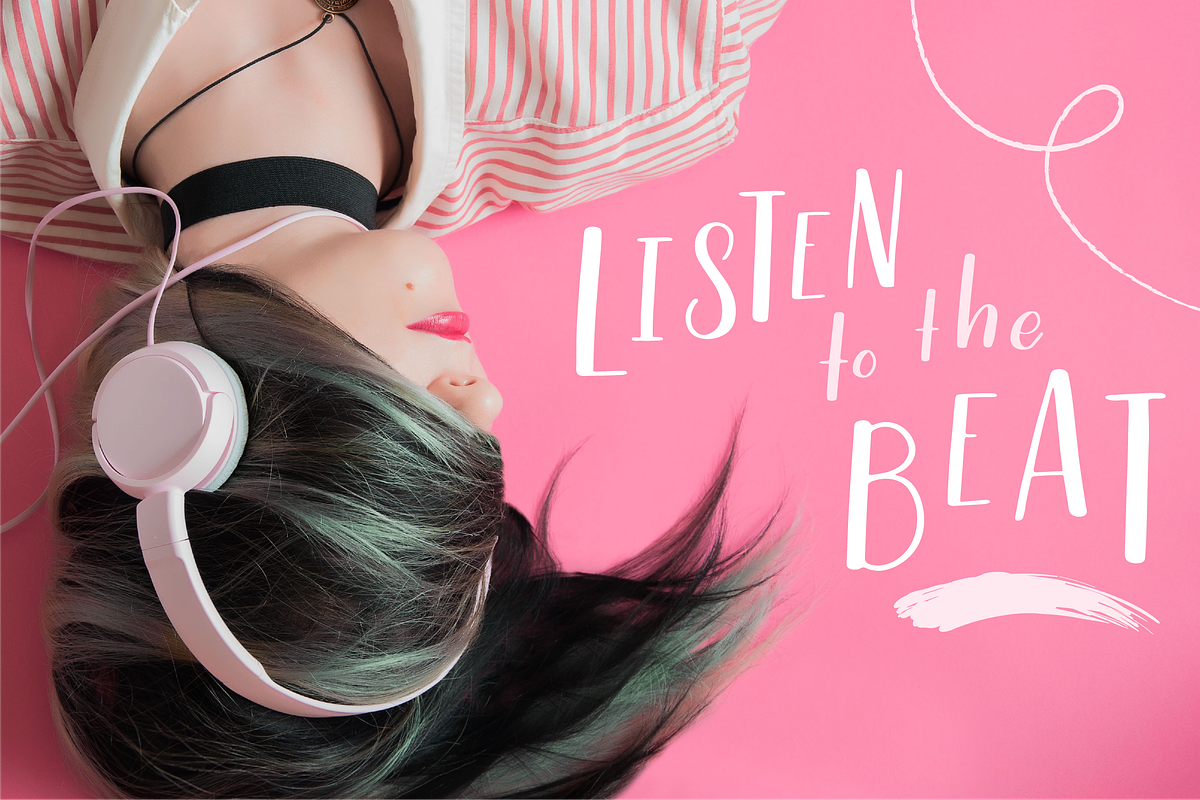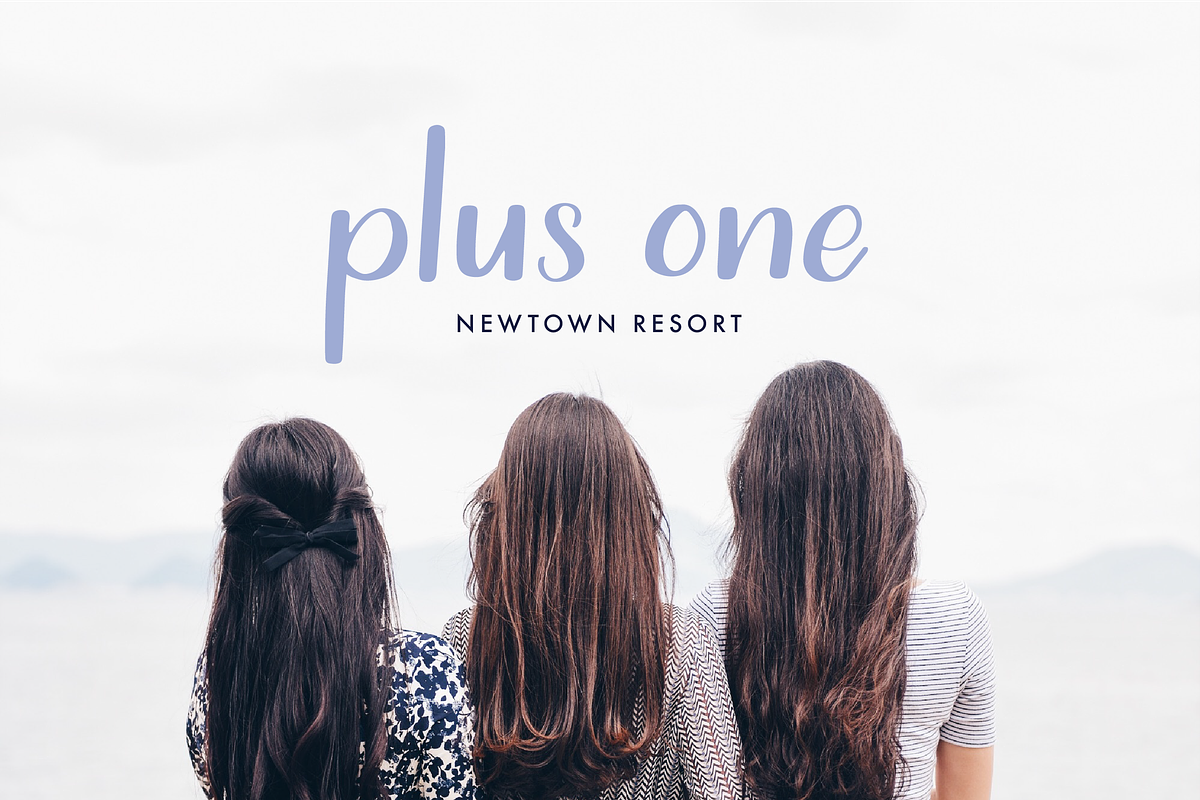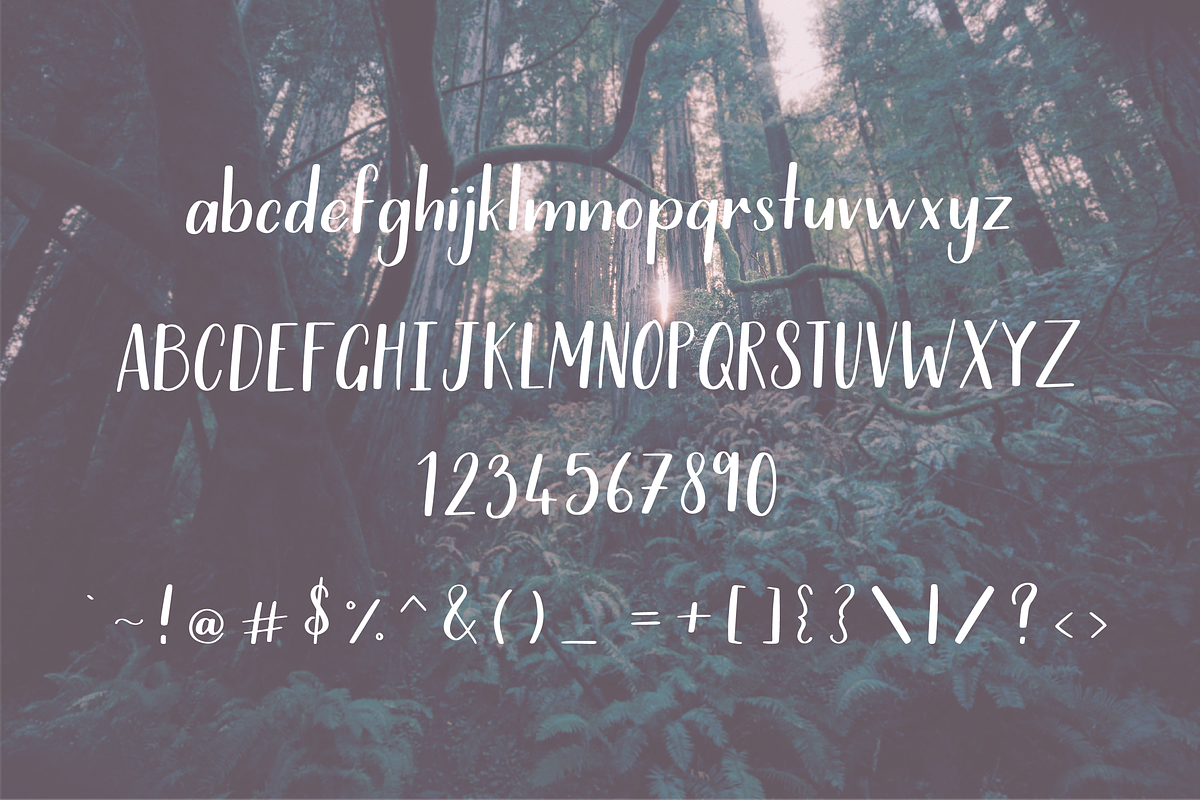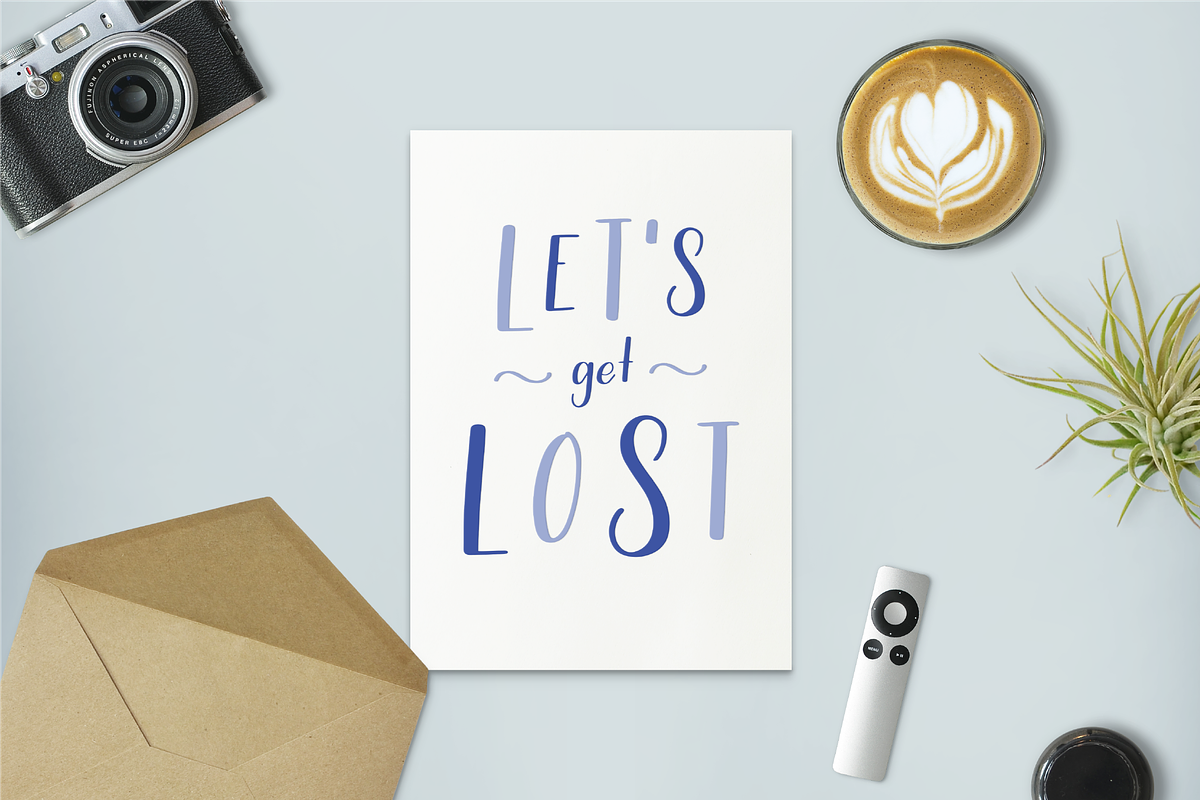
Riverwood Font
Riverwood Font by Sasha Hickson is a font selected for branding, posters, packaging, typography.
Why Riverwood Font is worth a look
Riverwood Font by Sasha Hickson fits naturally into Branding, posters, packaging, typography.